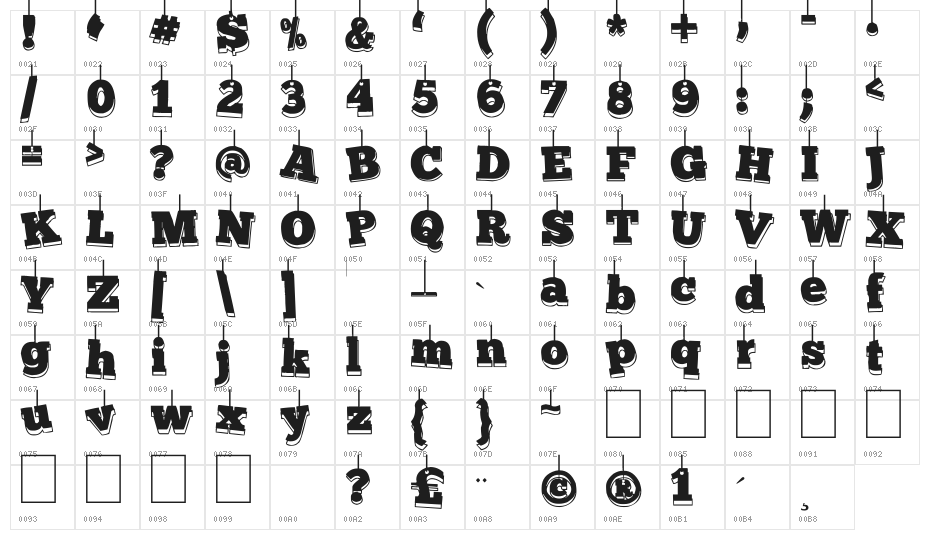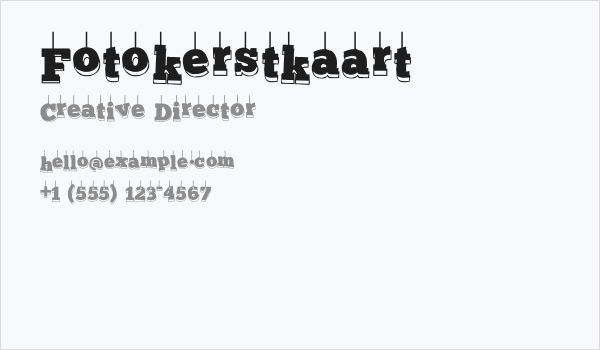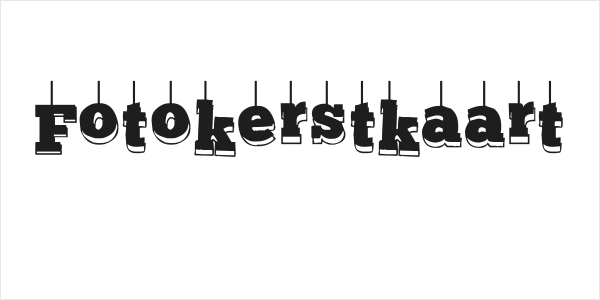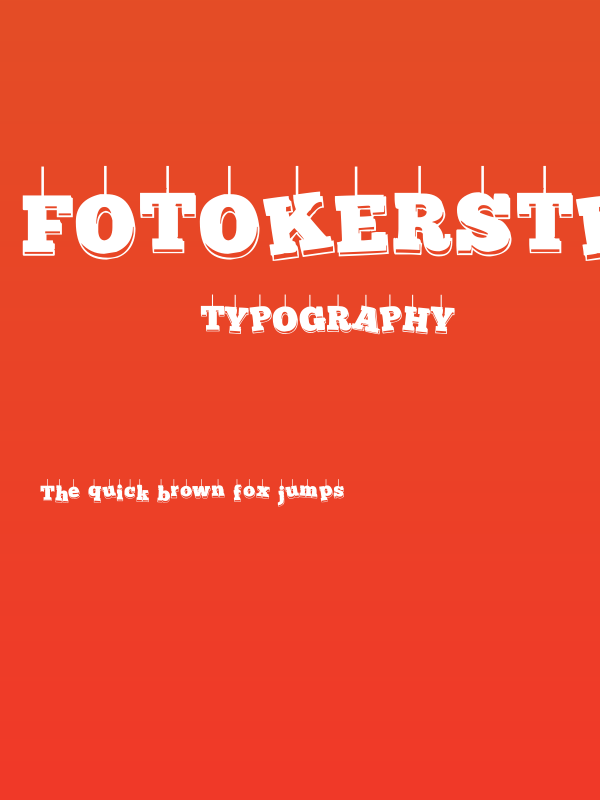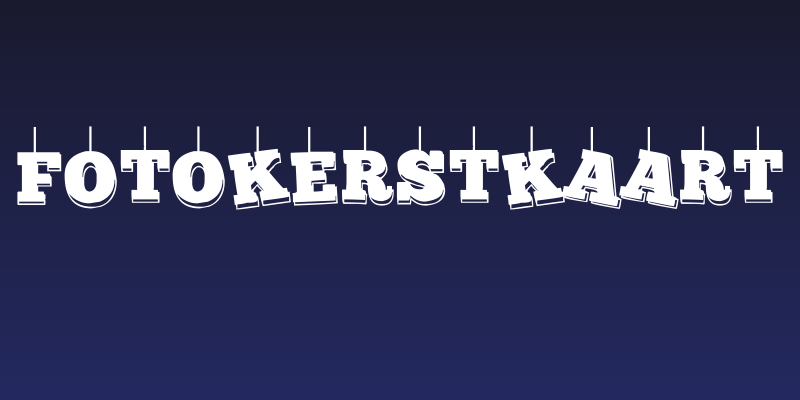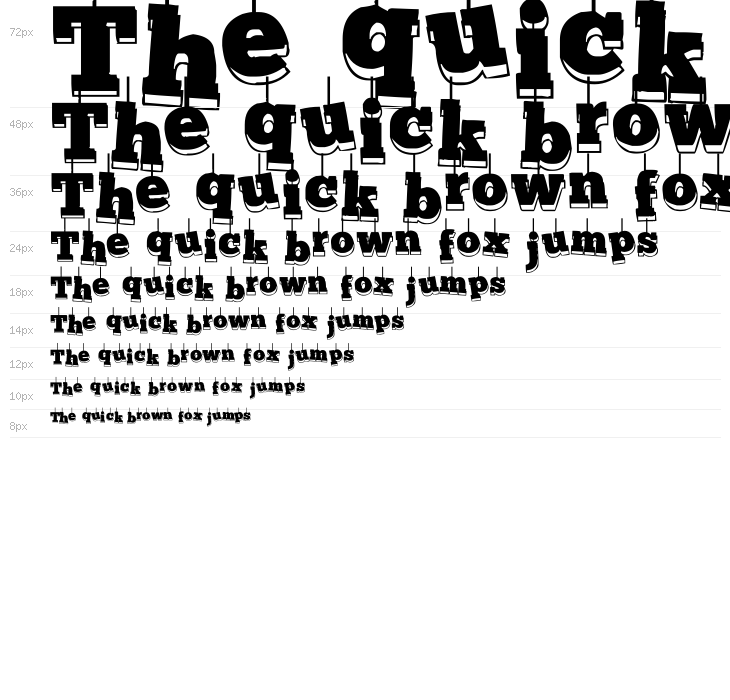
Fotokerstkaart Font
Fotokerstkaart Description
This playful and bold font features a unique hanging effect, where each character appears to be suspended by a string. The letters are thick and have a three-dimensional shadow that adds depth and a sense of fun. The uppercase and lowercase letters maintain a consistent style, with rounded edges and a slightly whimsical appearance. The numbers and special characters follow the same design, ensuring a cohesive look across all elements. This font is perfect for projects that require a touch of humor and creativity, making it ideal for festive or playful themes.
| Proposed Projects | Ideal for holiday cards, children's party invitations, playful branding, and festive posters. |